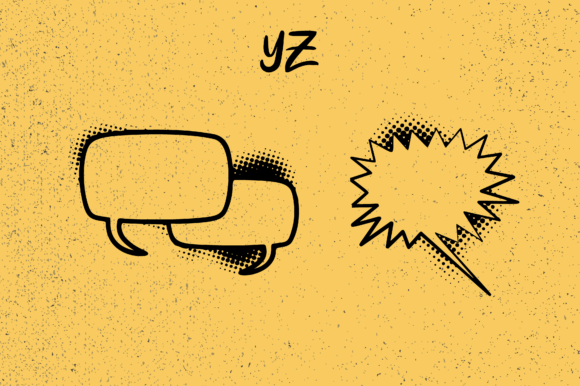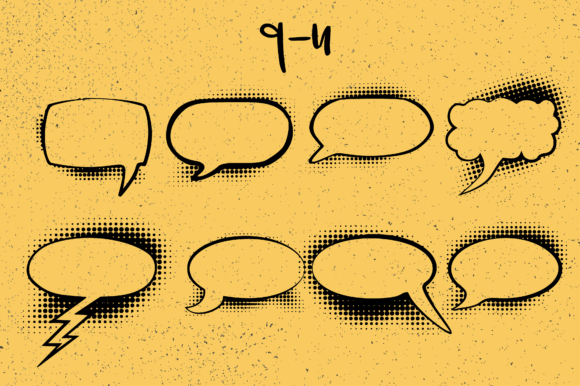
Speech Bubbles Font
Speech Bubbles is a dingbats typeface designed to help you effortlessly generate unique speech balloons that you can use in comic drawing, designs, illustrations, or other crafty ideas.